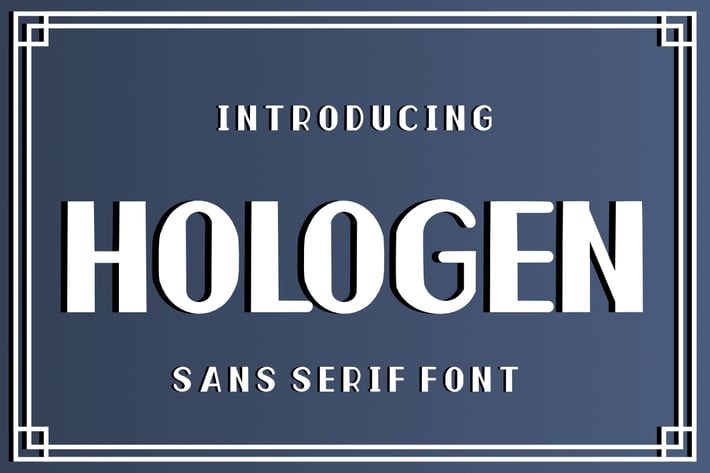
Hologen Sans Serif Font
Hologen Sans Serif Font, This font is made with a high premium quality level which you can use as flyers, quotes, posters, banners, packaging, merchandise, logotypes and much more.